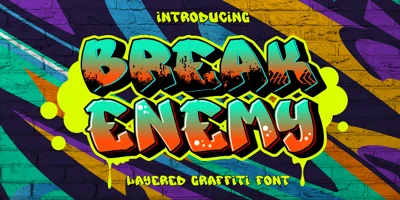
Break Enemy Graffiti Font
Break Enemy Graffiti Font excels in urban design applications including street art projects, hip-hop music branding, skateboard graphics, urban fashion marketing, graffiti-style murals, youth culture campaigns, underground event posters, and rebellious advertising materials that require typography with authentic street credibility and raw urban energy.
What makes Break Enemy Graffiti Font exciting is its powerful ability to capture the raw authenticity and rebellious spirit of street art culture through boldly expressive letterforms that embody urban resistance and creative defiance. This striking typeface features aggressive graffiti characteristics with spray-paint textures and street-smart details that instantly communicate rebellion, urban culture, and underground creativity. The font's fierce personality and street credibility make it perfect for brands seeking to establish authentic connection with urban audiences and communicate values of rebellion, artistic freedom, and street-level authenticity.
Break Enemy Graffiti Font family includes various weights and street-style variations designed for comprehensive urban communication. The family typically features regular, bold, and distressed weights, complemented by spray-paint effects, graffiti alternates, and extended character sets with urban symbols that enhance its street aesthetic and provide maximum rebellious impact.
Urban culture designers consistently choose Break Enemy Graffiti Font for projects requiring typography that embodies authentic street art spirit and underground credibility. This powerful typeface delivers exceptional visual impact across urban applications, from digital street art platforms to large-scale wall murals, ensuring consistent brand messaging with unmistakable street authority and rebellious appeal. The font's authentically crafted letterforms maintain excellent readability while delivering the aggressive presence that underground brands demand. Street culture agencies worldwide rely on this rebellious typeface to communicate brand values of resistance, creative freedom, and urban authenticity. Break through conventions with Break Enemy Graffiti Font and create compelling visual communications that resonate with audiences who appreciate authentic street culture, artistic rebellion, and the uncompromising spirit of urban creative expression.